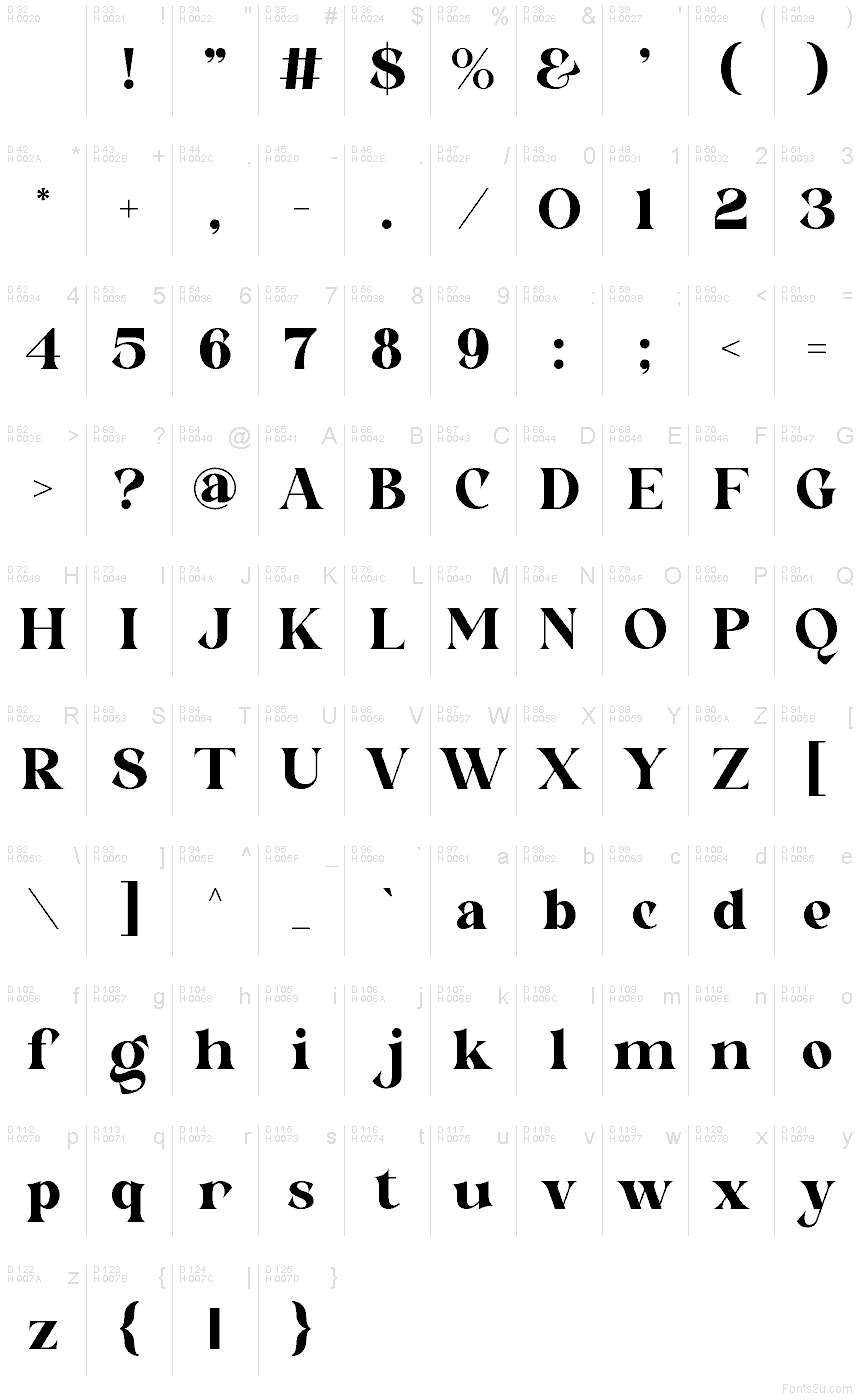
Begave Regular
Begave font by Ermedia Studio is a free retro serif font that leans into sculptural contrast—thick, inky strokes taper into knife-sharp joins, while swooping curves add a dramatic, almost theatrical cadence. The letters feel carved rather than drawn, with bold counters and a silky flow that catches the eye in a single glance. Set it large with slightly tight tracking to let those lush shapes lock together.
Using Begave, headlines gain instant character without slipping into kitsch. It shines on boutique logos, editorial mastheads, wine or perfume labels, poster headlines, packaging, and event invitations. This free font rewards confident scale and simple layouts; pair its drama with a quiet neo-grotesque or humanist sans for body copy to keep the spotlight on Begave’s rich, retro pulse.